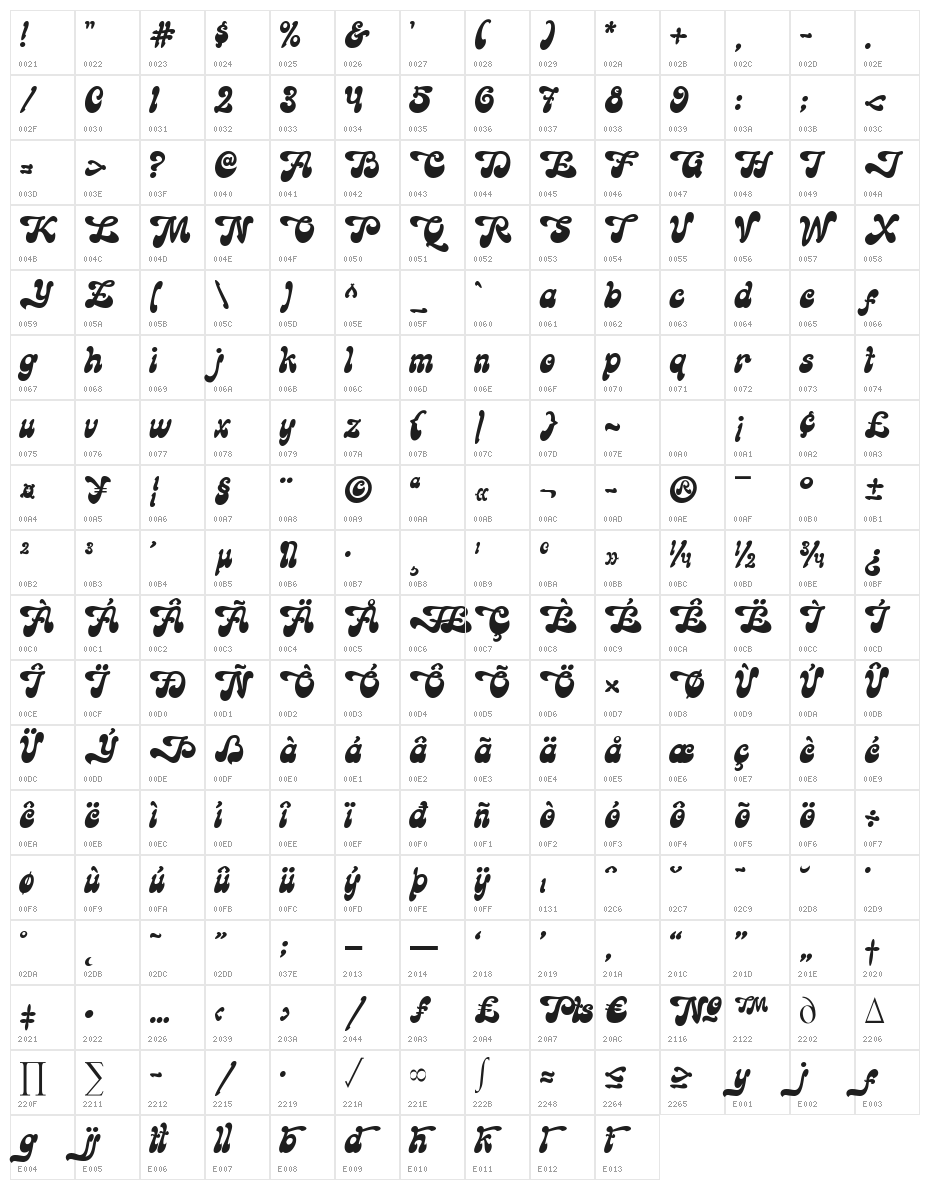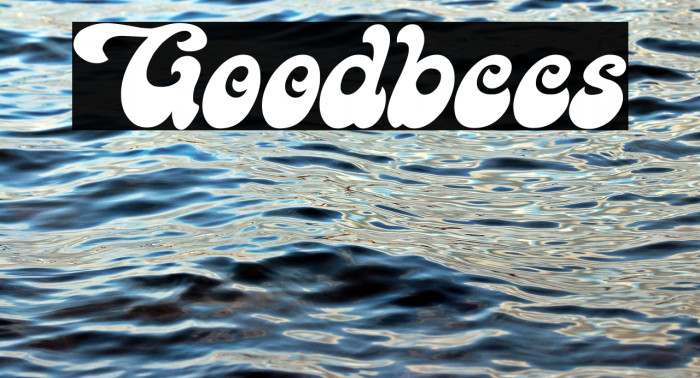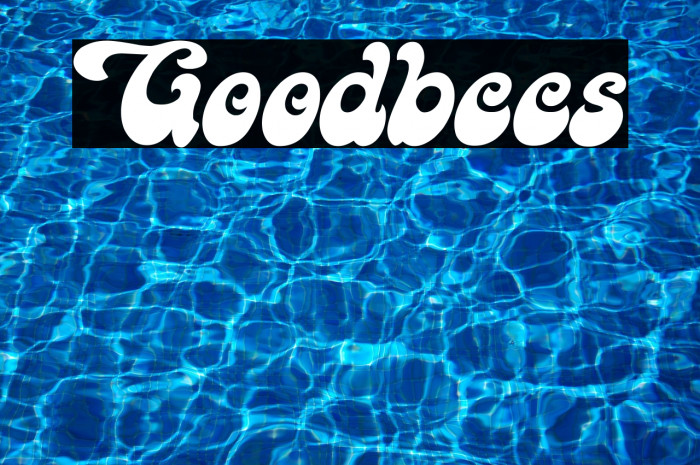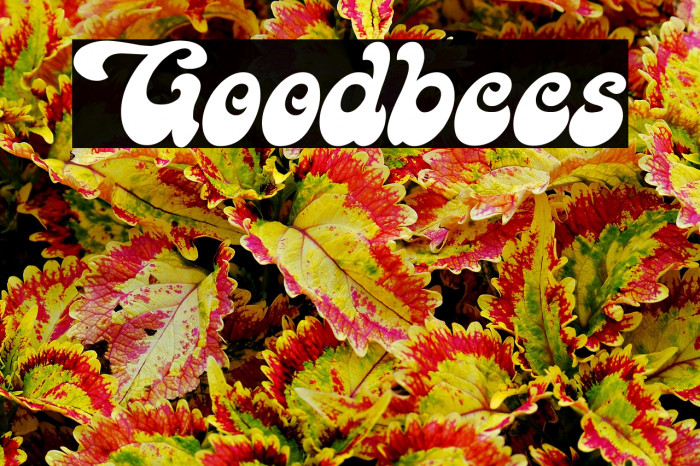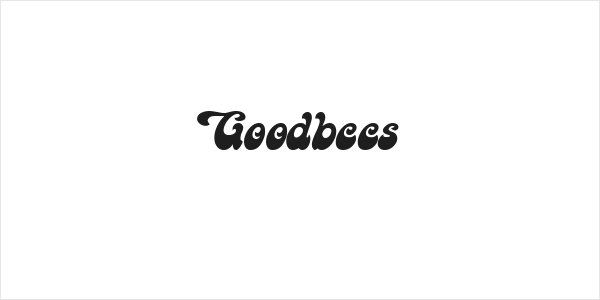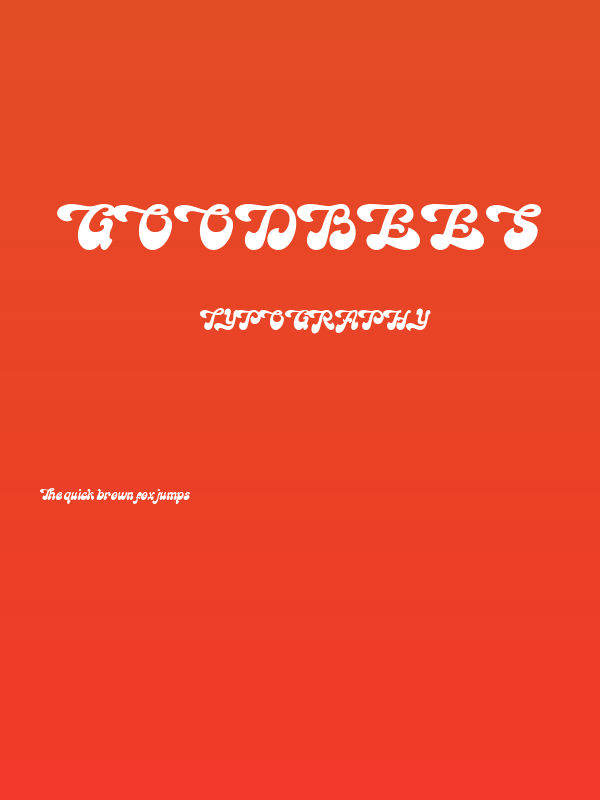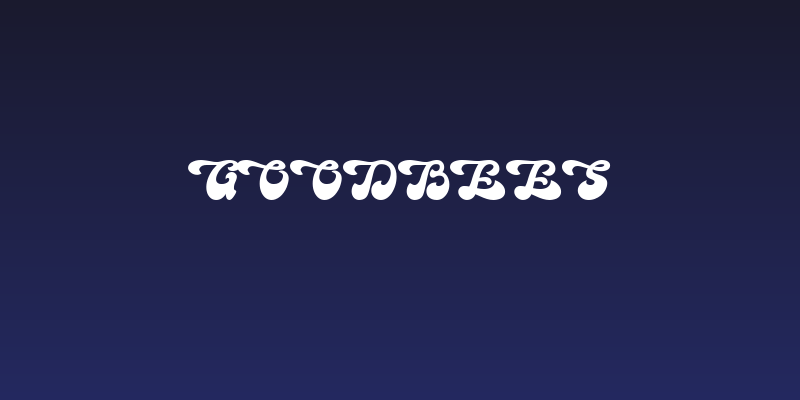
Goodbees Font
Goodbees Description
This font features a bold, playful style with a strong emphasis on rounded, bubble-like forms. The characters are interconnected, creating a sense of flow and movement. The uppercase and lowercase letters maintain a consistent weight, contributing to a cohesive appearance. The numbers and special characters follow the same design principles, ensuring uniformity across the set. The font's thick strokes and rounded edges give it a friendly and approachable feel, making it suitable for creative and informal projects.
Overall StylePlayful, Creative
Use CaseLogos, Headlines, Posters
Proposed ProjectsIdeal for children's books, playful branding, posters, and creative invitations.